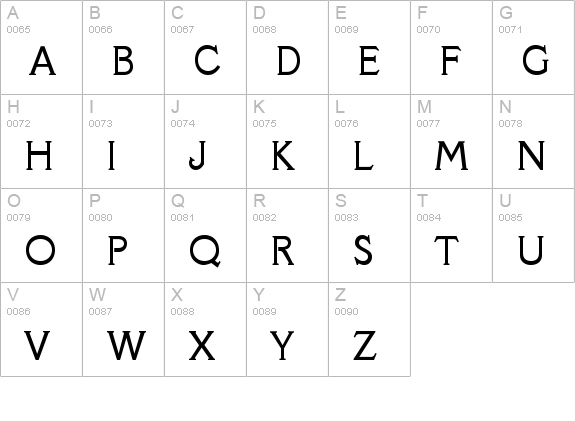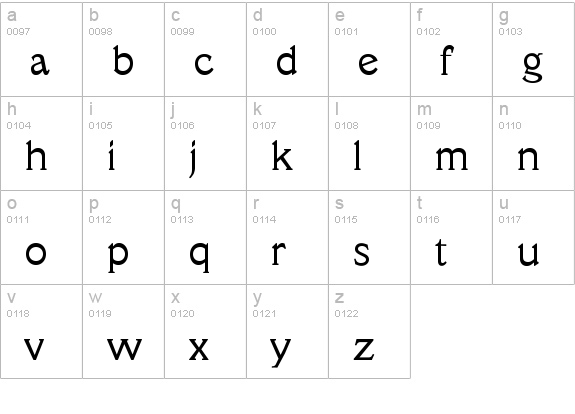
Veracruz-Regular is the standard, neutral variant in the Veracruz typeface family \xE2\x80\x94 well suited to general body text, paragraphs, and standard typographic work.
Veracruz-Regular is a stunning font that effortlessly captures the essence of elegance and sophistication. With its delicate curves and exquisite details, this font is perfect for adding a touch of refinement to any design project. The versatility of Veracruz-Regular is truly unmatched. Whether you are creating a logo, designing a website, or crafting a beautiful invitation, this font will bring a sense of style and class to your work. Its clean and legible letterforms make it easy to read, ensuring that your message is conveyed effortlessly. What makes Veracruz-Regular even more appealing is the fact that it is freely available to download at FontsMarket.com. This means that you can enhance your creative endeavors without any additional cost. The accessibility of this font allows designers and enthusiasts alike to incorporate it into their projects, making it a valuable asset in the world of typography. The beauty of Veracruz-Regular lies in its ability to seamlessly blend into any design aesthetic. Whether you are going for a modern, minimalist look or a more traditional, vintage feel, this font will effortlessly adapt to your vision. Its timeless appeal ensures that it will remain relevant and captivating for years to come. In addition to its aesthetic appeal, Veracruz-Regular also boasts excellent readability. Each letter is meticulously crafted to ensure legibility, making it ideal for various applications such as body text, headlines, or captions. This makes it a versatile choice for both print and digital designs. With Veracruz-Regular, you have the freedom to unleash your creativity and elevate your design projects to new heights. Whether you are a professional designer or an aspiring enthusiast, this font will undoubtedly become an essential tool in your typographic arsenal. So why wait? Discover the beauty and versatility of Veracruz-Regular today by downloading it for free at FontsMarket.com. With this font at your disposal, the possibilities for creating stunning and impactful designs are endless. Embrace the freedom and let Veracruz-Regular elevate your creative journey.